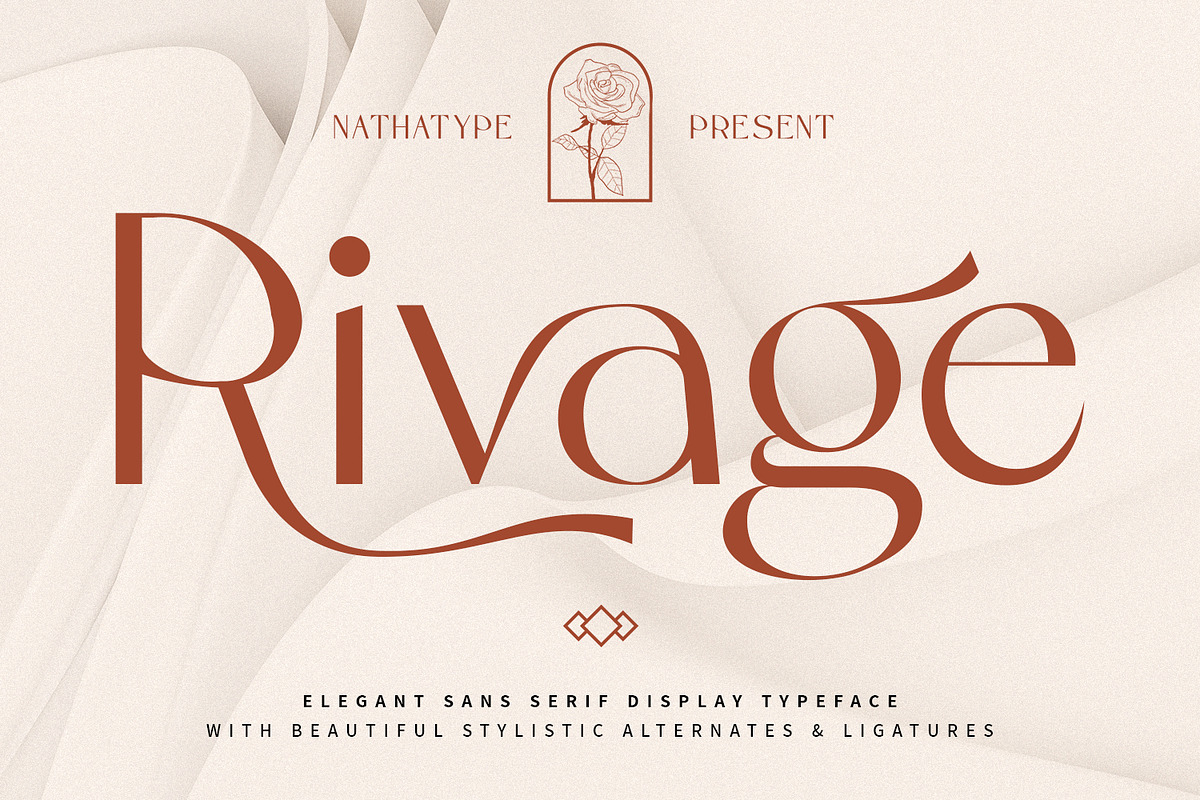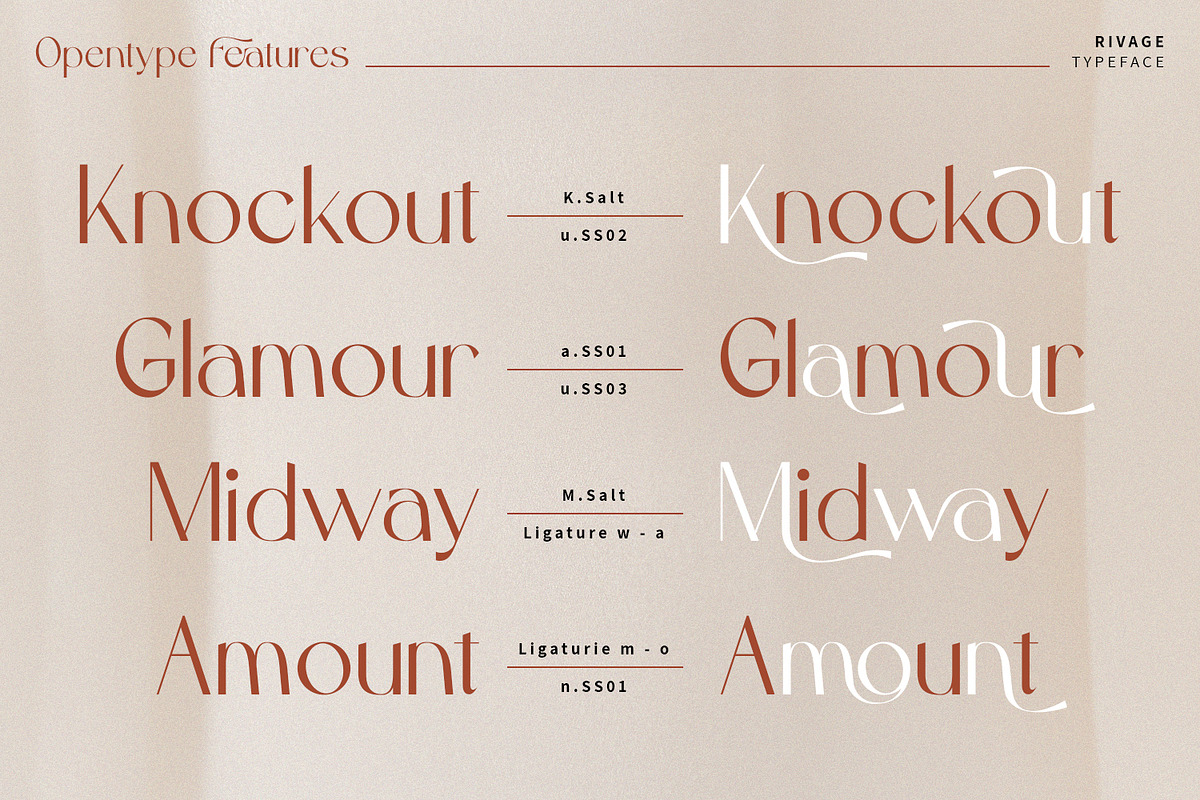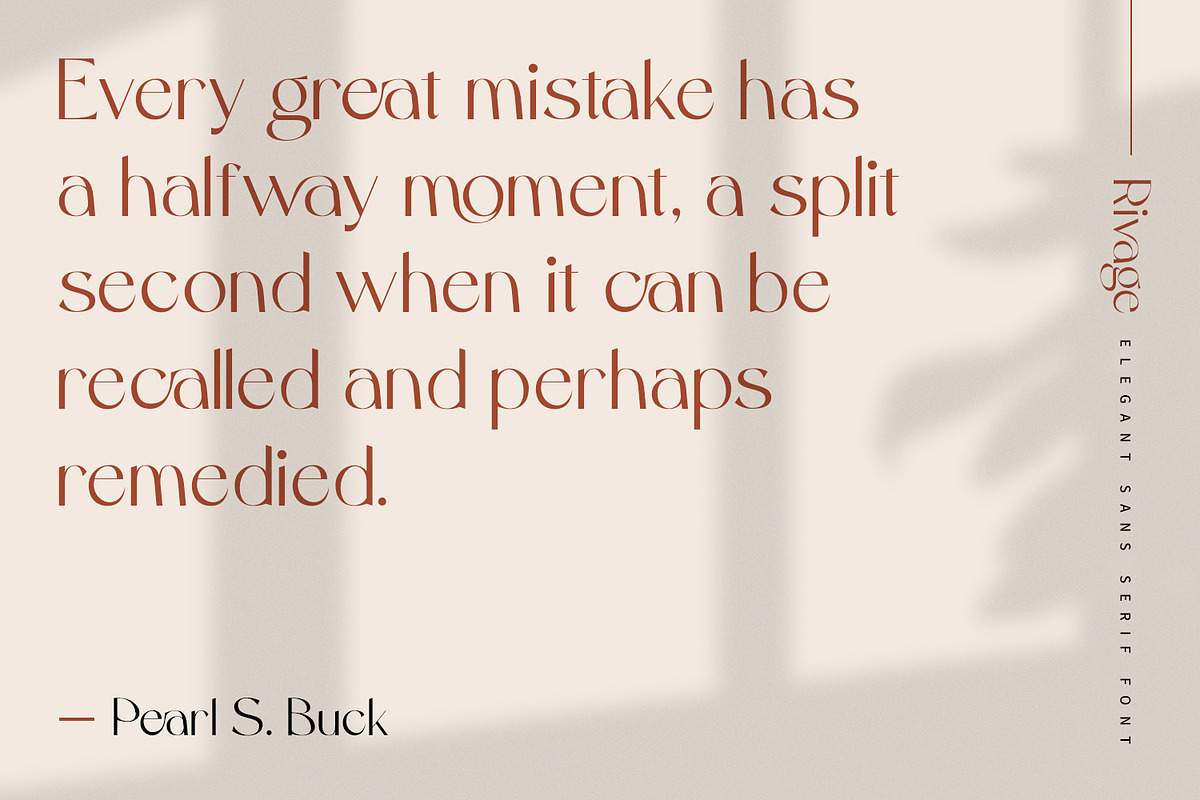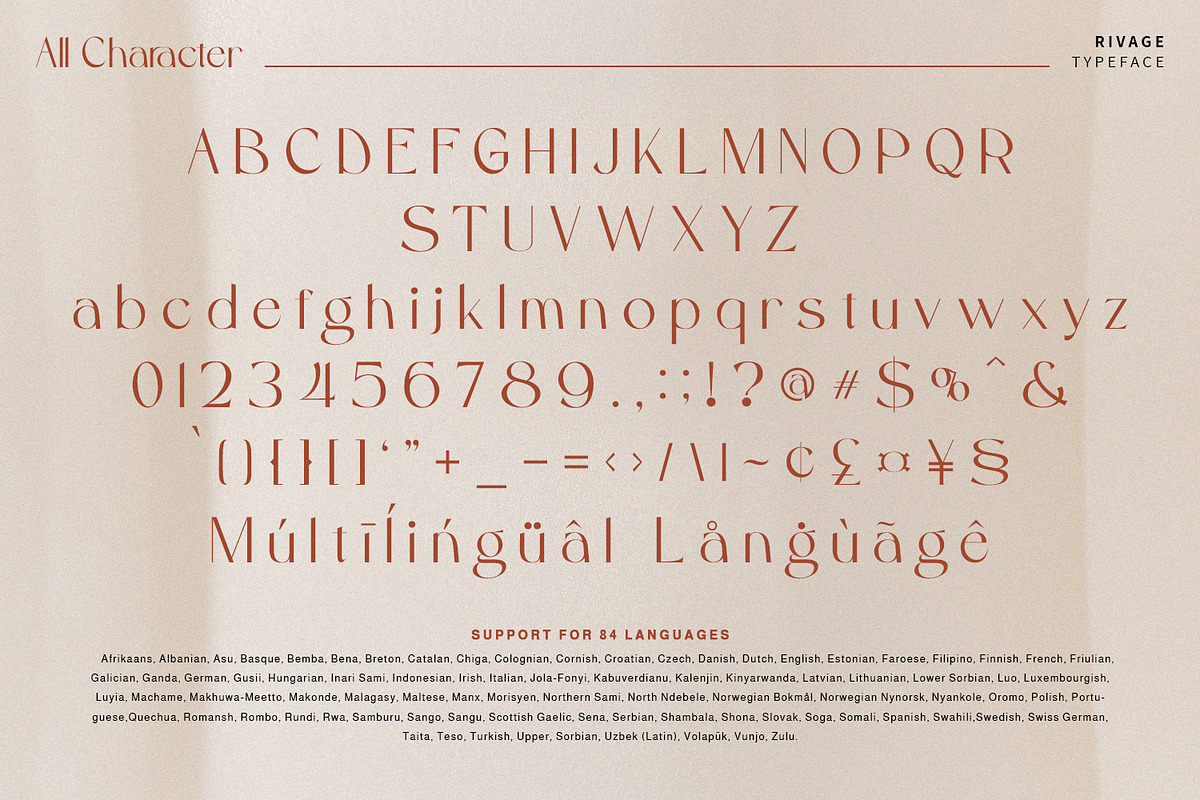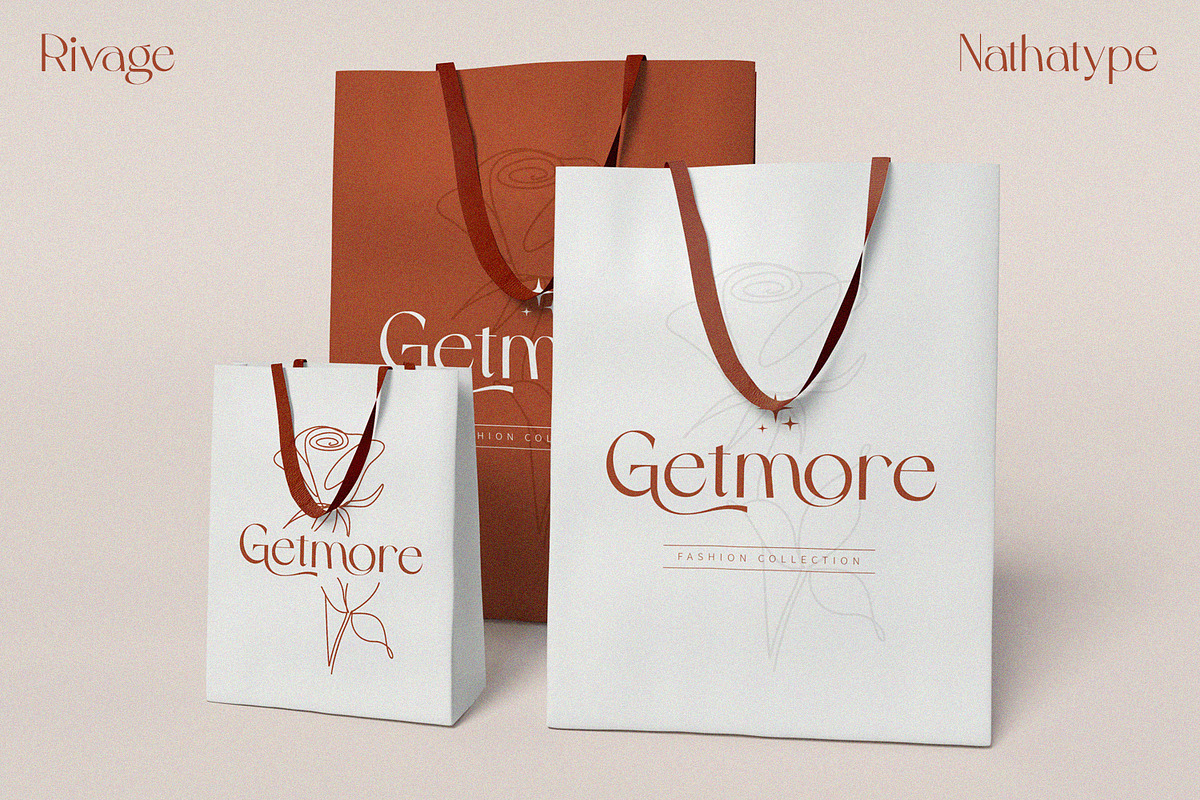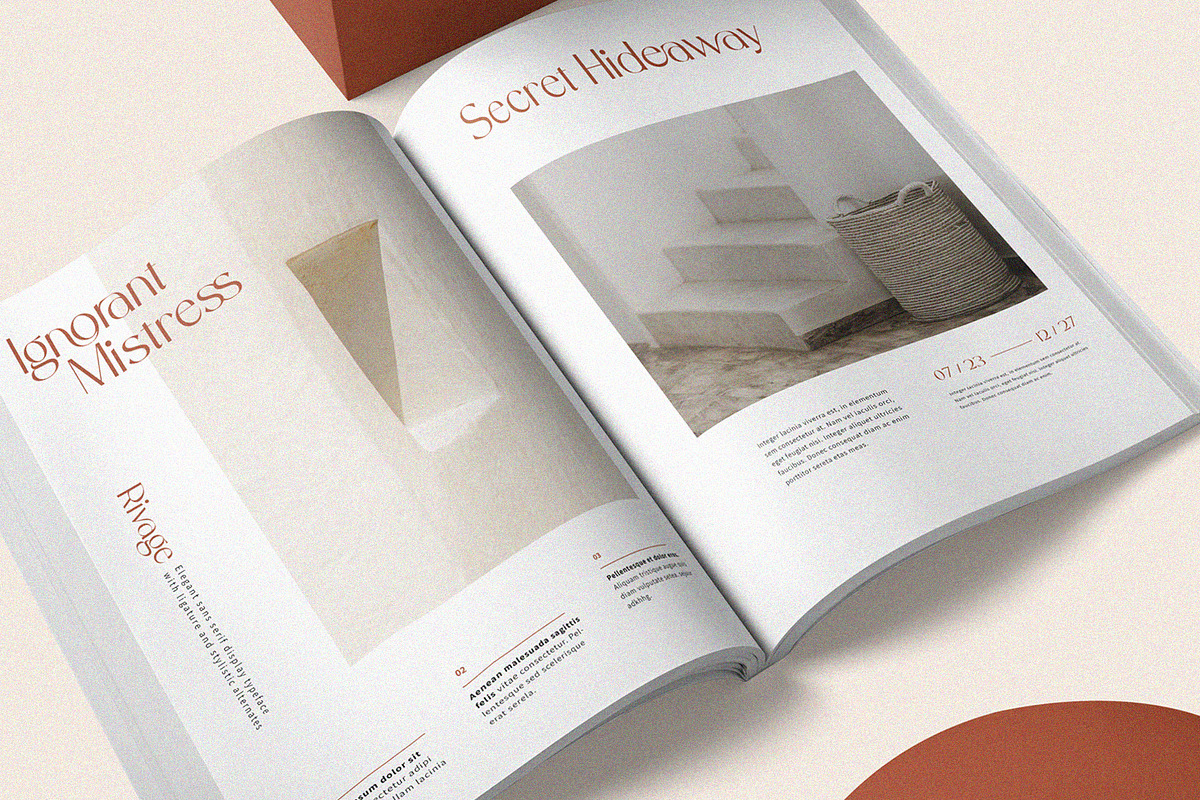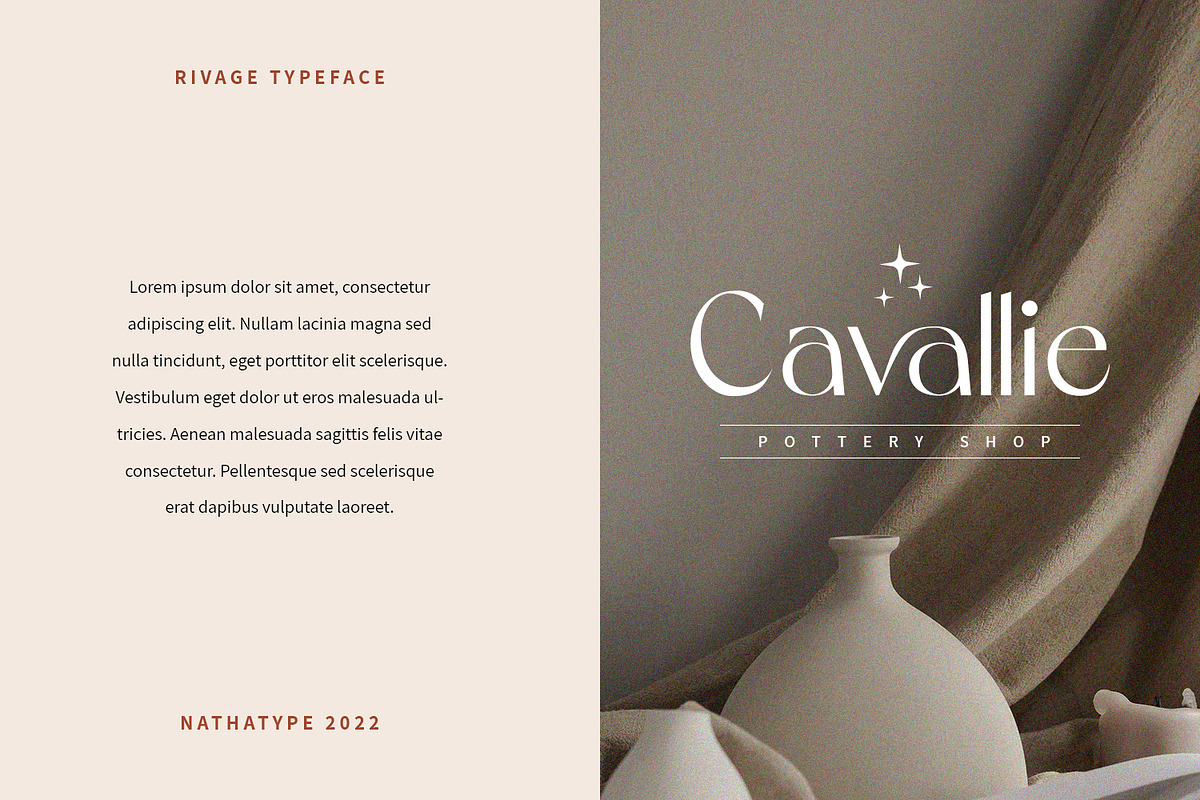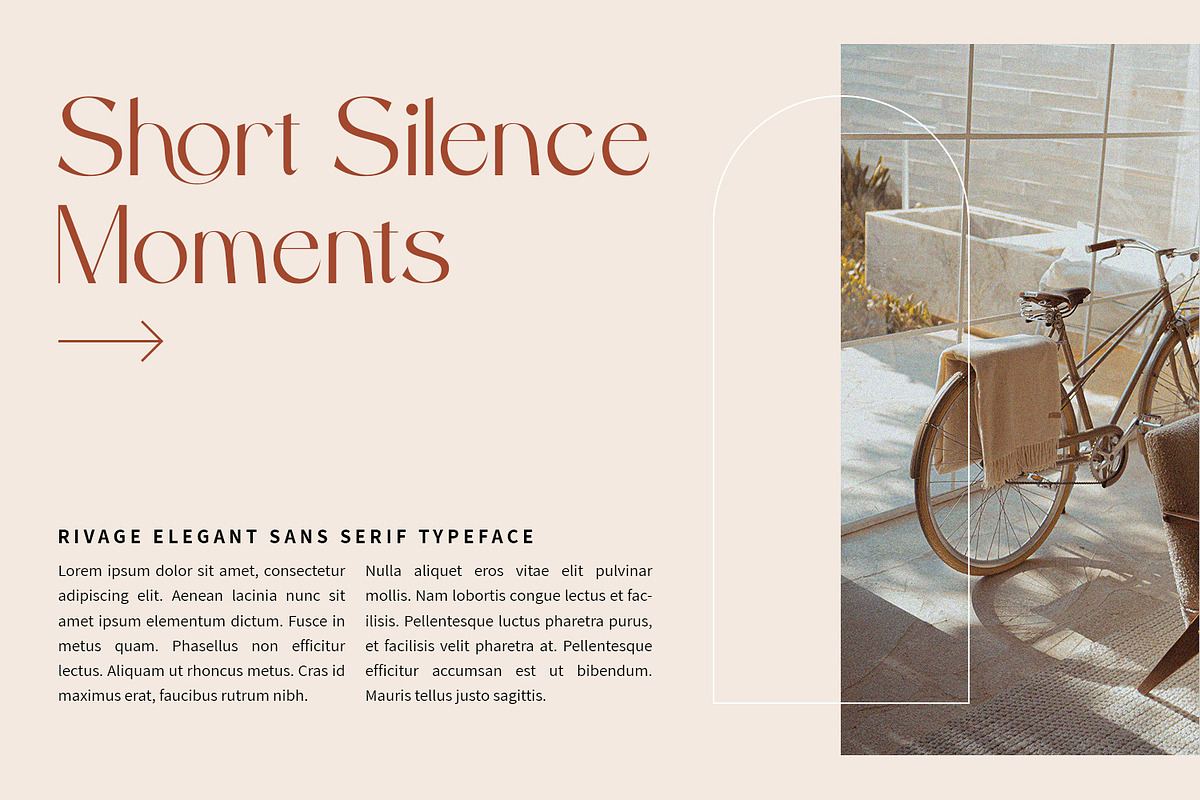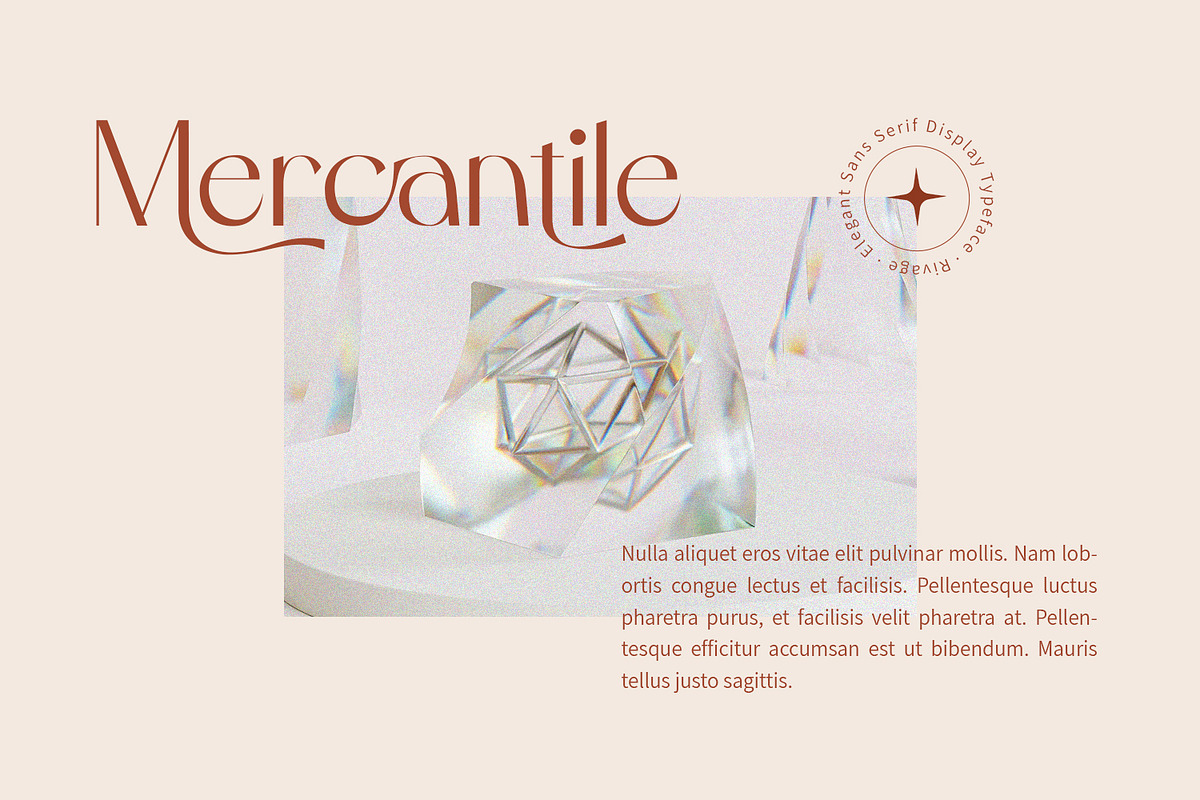
Rivage
For a dramatic design result, you can take it up a notch with our lovely font, Rivage. It is an elegant sans serif font. This font is quite enigmatic, in that its geometric but also has an open curves. The result is a font that looks friendly and professional at the same time. Also, Rivage is versatile enough to be used on tittle or body text.
- Stylistic Sets
It can be used for branding, logos, social media quotes, stickers, posters, vintage designs, wall art, merchandise, social media, and many more. Get more inspiration by seeing the preview.